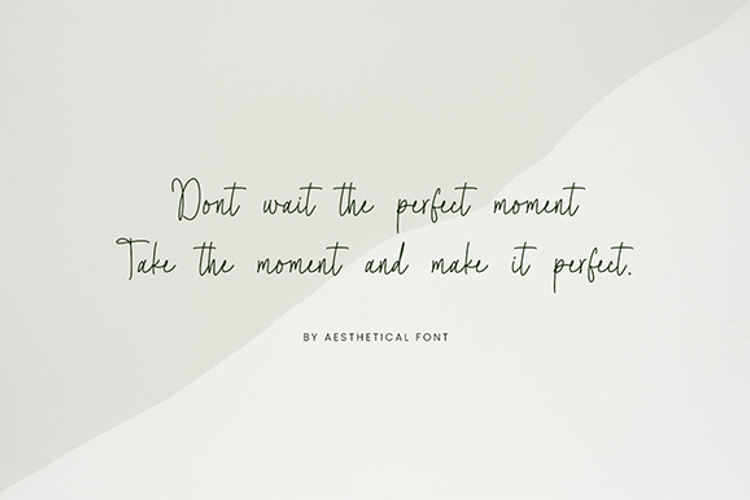
Aesthetical Font
Aesthetical is a stunning handwritten font that captures the beauty in every stroke. Carefully crafted with love and attention to detail, Aesthetical brings an elegant and charming touch to every word